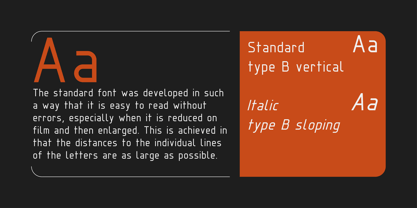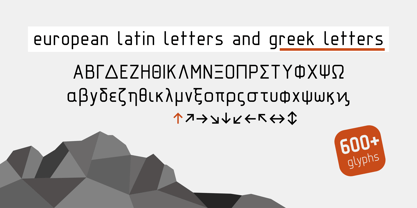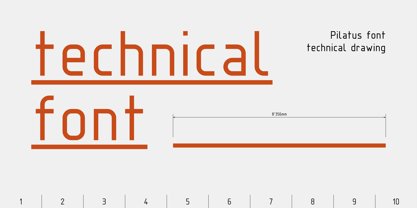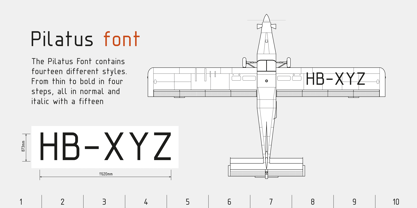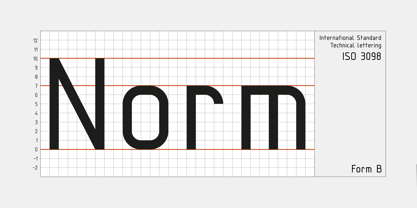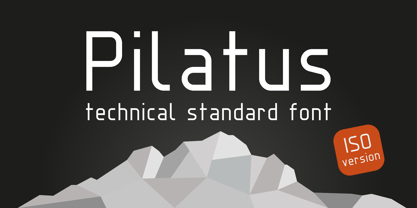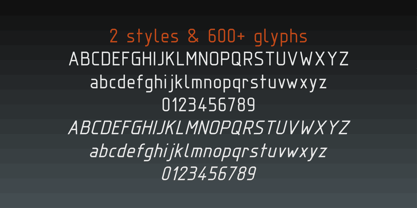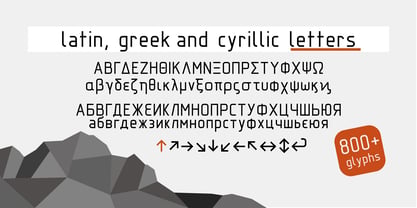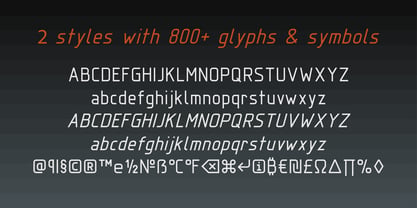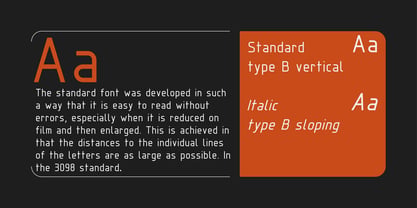
Pilatus ISO
The Pilatus ISO Font Family was designed by Milan Rohrer and published by Milan Rohrer Studio. Pilatus ISO contains 2 styles and family package options. More about this family
Pilatus is a sans-serif technical standard typeface based on the ISO 3098 specification. This version of the typeface includes no kerning, as kerning is not provided for in the original standard. For optimal readability in running text, use the "Pilatus" family without the "ISO" suffix. The typeface follows clear rules and geometric proportions. This release is a free interpretation of the ISO 3098 standard and is not an official ISO-certified product. The ISO standard itself defines the proportions and construction of technical lettering used in engineering drawings, ensuring uniformity and clarity across technical documents. Pilatus embraces these principles while offering a practical and typographically consistent implementation for modern workflows.
I'm an Industrial Designer based in Switzerland. Now working on physical product design in several industries I've always been driven by the power of graphic design. Clearly geometrical forms and precise forms inspired me. When I was learning technical drawing of airplanes in my apprenticeship I was impressed by the precision of the standard fonts. I haven't found a good digital font that has this accuracy of the old analogue standards. So I started creating my own fonts.